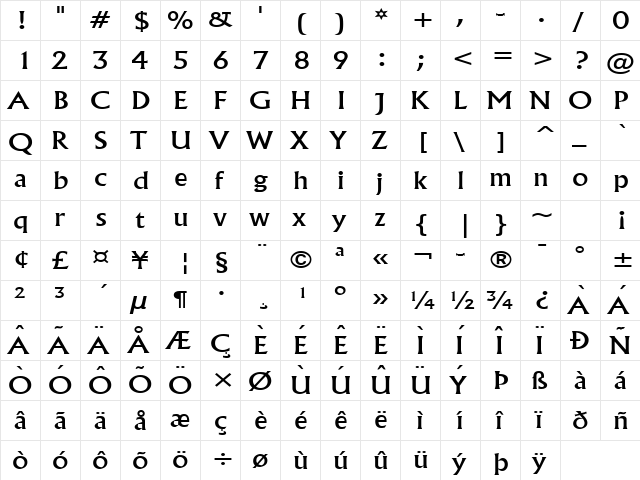
Flair Wide Normal
Design Context for Flair Wide Typeface
Flair Wide offers clean, dependable letterforms without strong stylistic allegiance, making it a practical choice for designers who need flexibility.
Pro Tip: Use Flair Wide in both headline and body roles to test its range before committing to a single application.